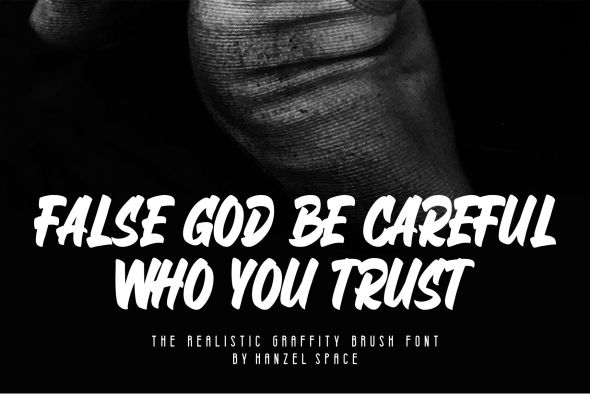
Road Blast Letter Font
Road Blast Letter Brush Font
This is a natural brush font, inspired by a vintage aesthetic sign painting. Made in combination with hand lettering, it comes with dramatic movement and it’s great for any next creative project that needs a retro vibe.
Ideal for logos, handwritten quotes, product packaging, header, poster, merchandise, tagline, social media & greeting cards.
Features:
• Standard Ligatures
• Numerals and Punctuation